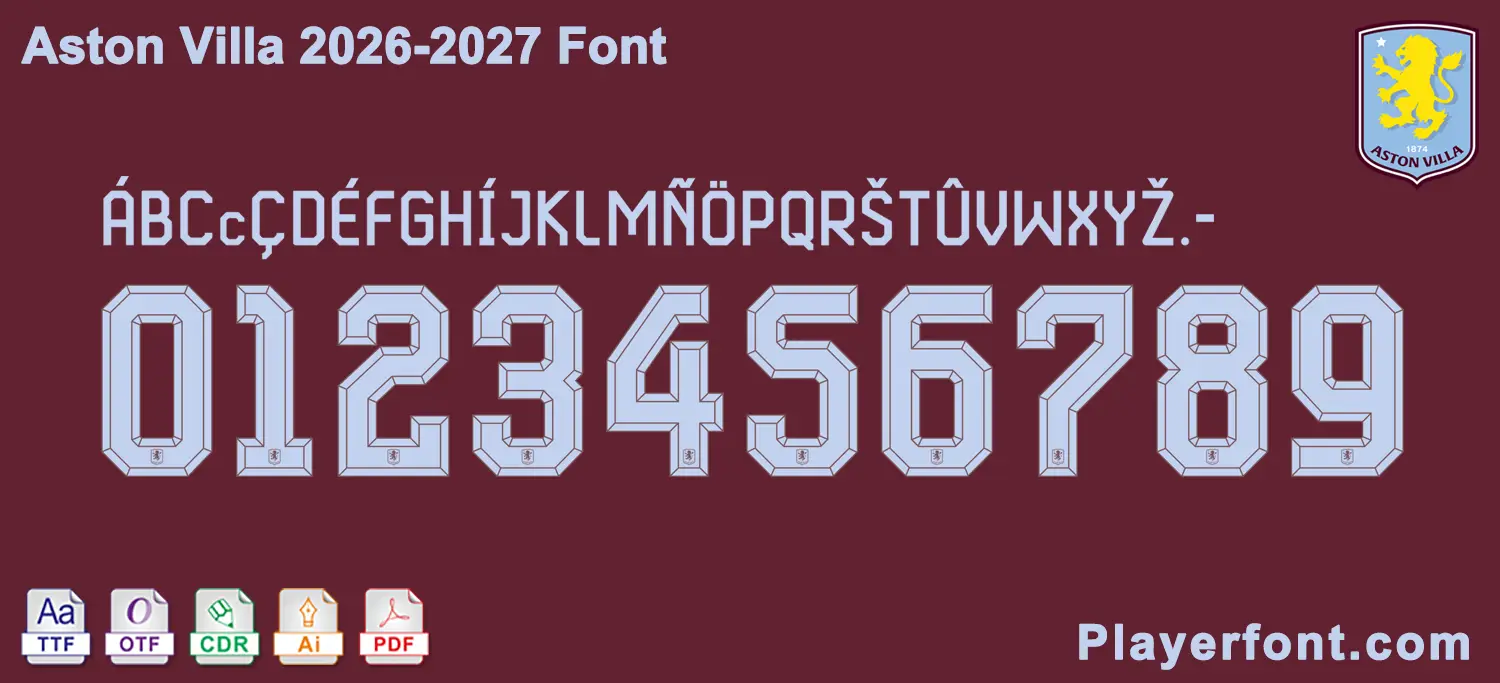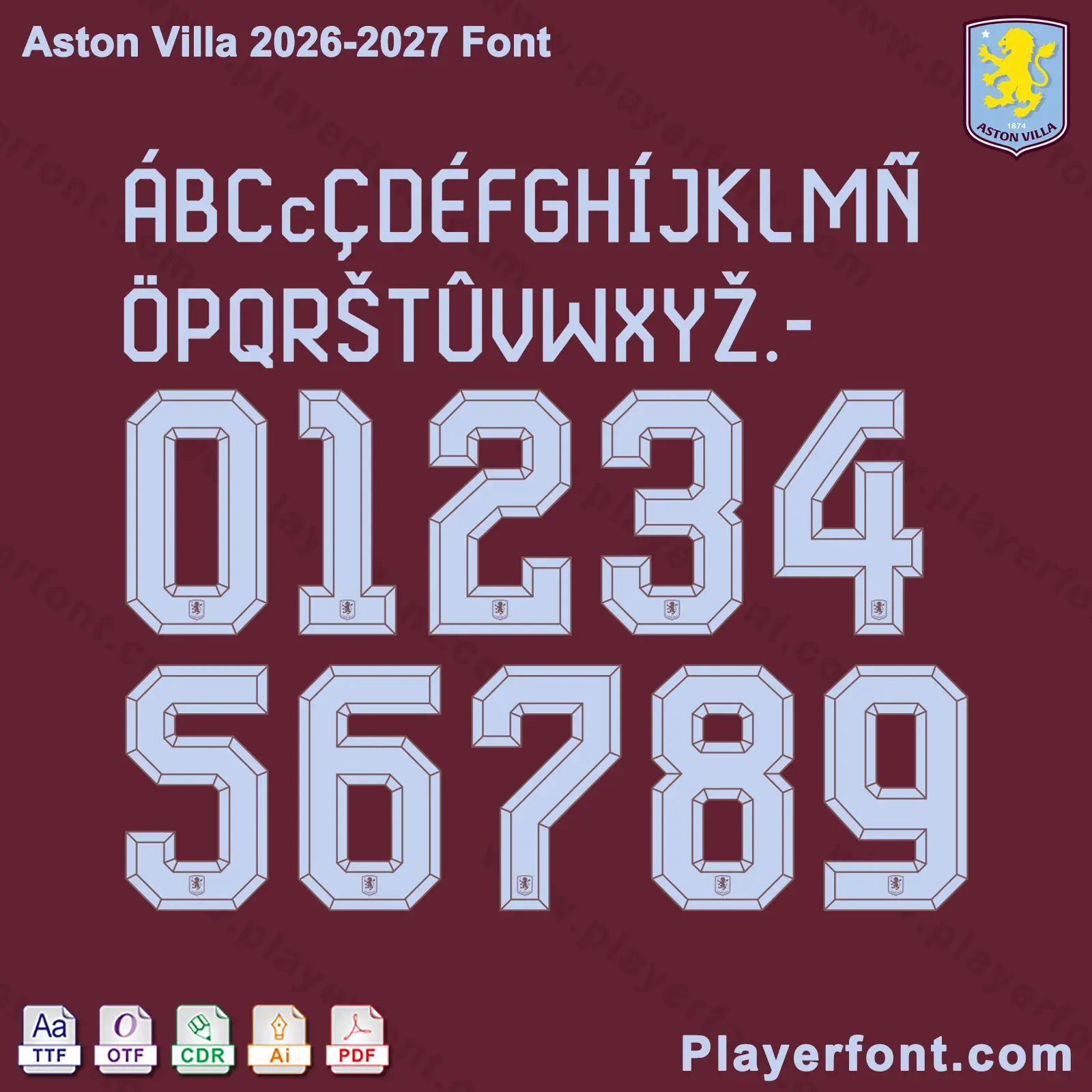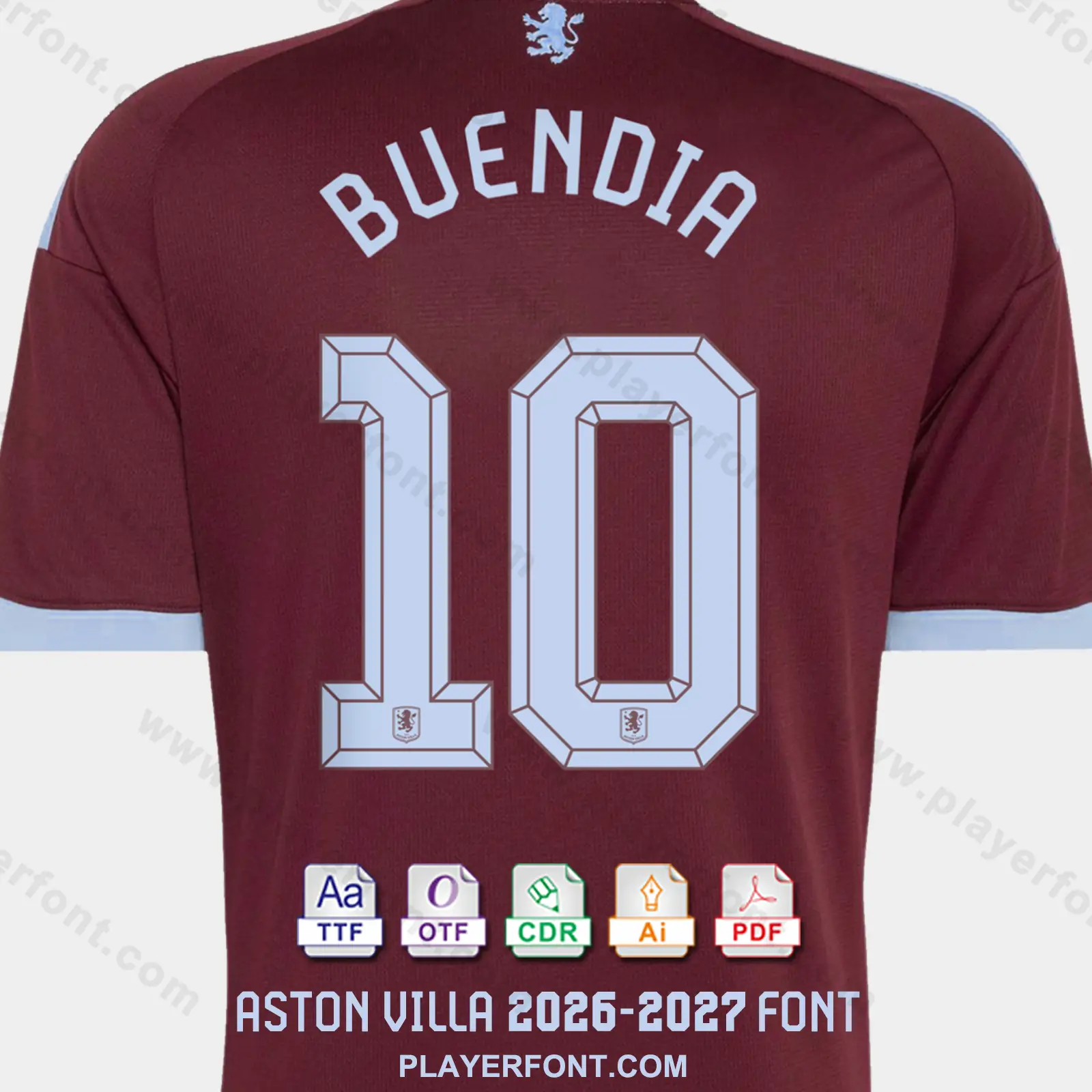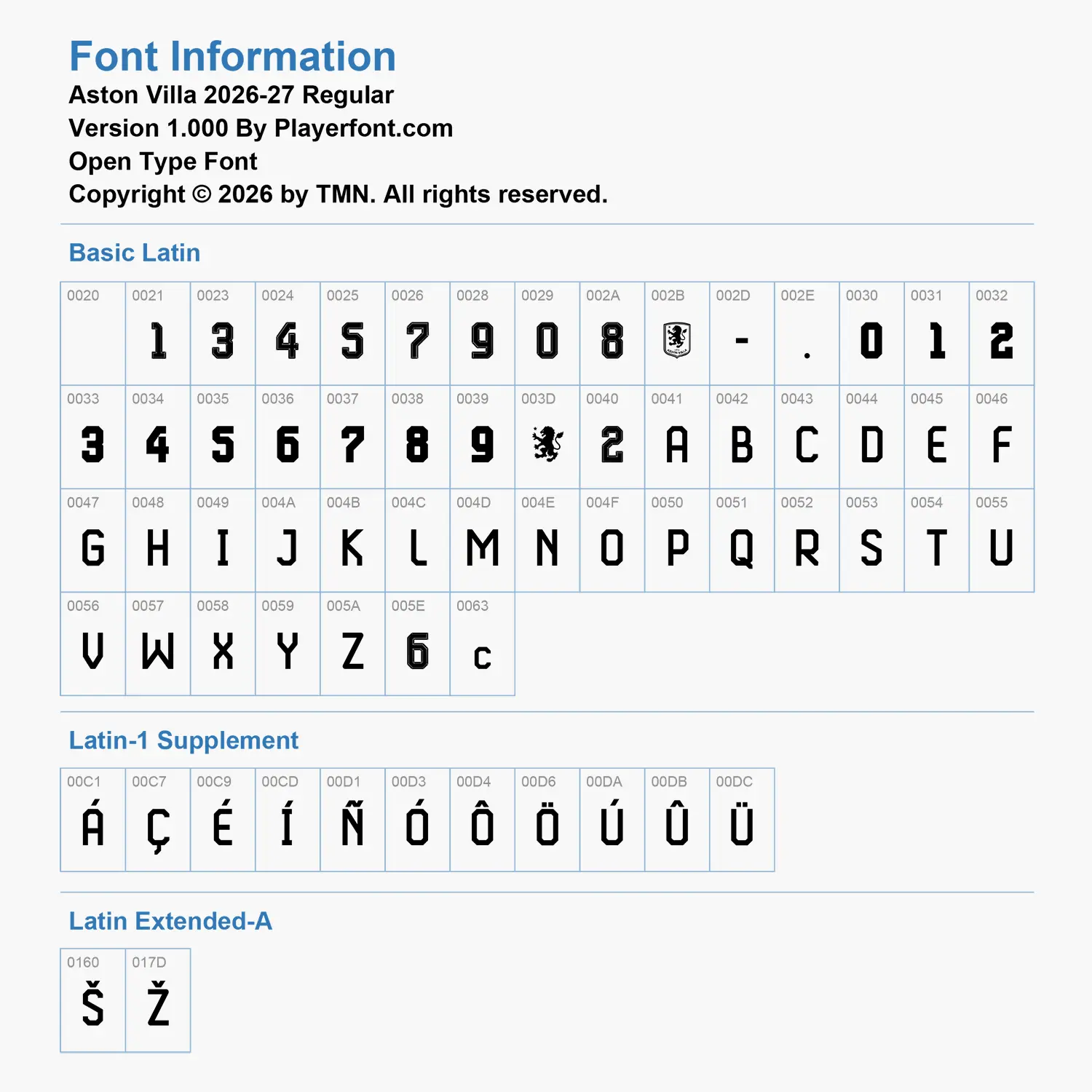
Elevate your sports jersey mockups, football custom graphics, and vector printing projects with the official-style Aston Villa Font 2026-2027 Download. Masterfully crafted by Playerfont.com, this high-performance OpenType Font (OTF/TTF) replicates the distinctive block-style typography and 3D geometric numbers featured on the pitch for the 2026-27 football season.
Key Typography Features & Character List:
This typography pack is fully optimized to support international players and diverse numbering layouts:
- Basic Latin: Complete A-Z uppercase characters, block-style numbers (0-9), punctuation marks, and special glyphs.
- Latin-1 Supplement & Extended-A: Complete accent characters (such as Á, Ç, É, Í, Ñ, Ó, Ô, Ö, Ú, Û, Ü, Š, Ž) for accurate player name spelling (e.g., BUENDÍA).
- Club Crest Integration: The distinctive Aston Villa lion crest is intricately embedded into the base of each jersey number for maximum authenticity.
| Design Feature | 3D Bevel/Chiseled Layer with Embedded Crest |